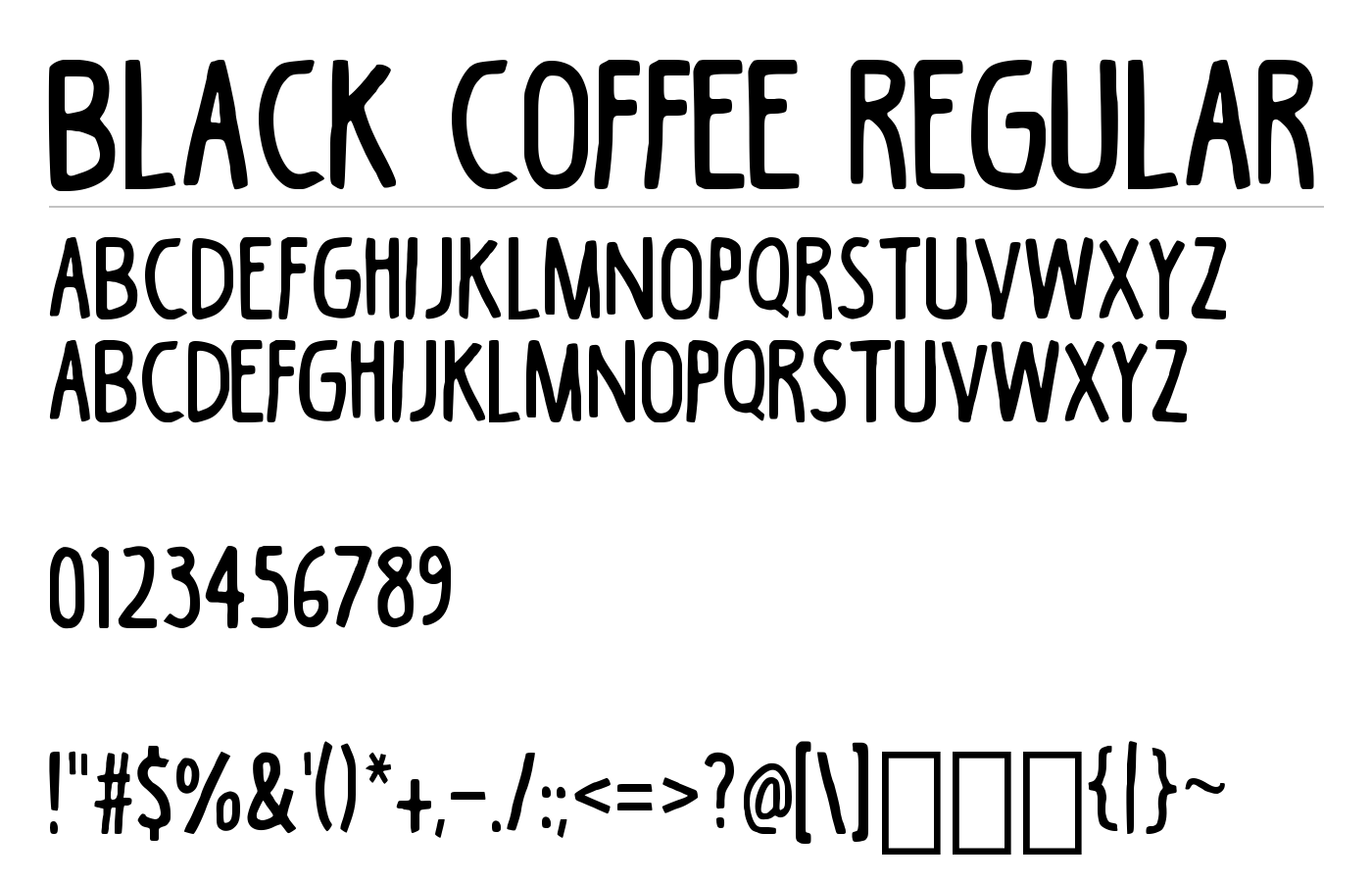
Black Coffee Regular is a playful and casual sans serif font characterized by its tall, narrow letterforms and rounded edges. Its hand-drawn appearance with consistent stroke weight and slightly irregular shapes gives it a friendly and approachable vibe, making it ideal for creative projects, informal branding, and packaging that seek a warm, personal touch. This font works well in headlines or logos where a distinctive, human feel is desired without sacrificing readability.
Black Coffee Regular Font